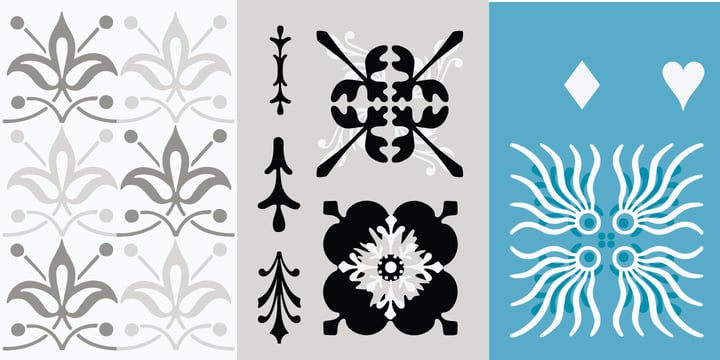
LTC Ornaments Two
LTC Ornaments Two™ by Lanston Type Co.
LTC Ornaments Two Font Family was published by Lanston Type Co.. LTC Ornaments Two contains 1 styles. More about this family
About LTC Ornaments Two Font Family
LTC Ornaments Two is the first Lanston Ornament font which uses OpenType features to assist in decorative border creation. The ornaments themselves features designs of Fournier and other classic fleurons and ornaments whose origins date back to the earliest printers.